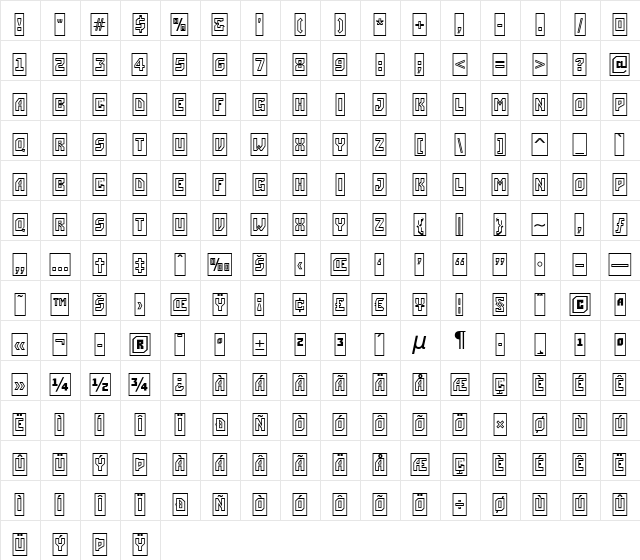
a_SimplerCmOtl Bold
| Designer | W.Chufarofsky & M.Slutsker` |
Design Context for a_SimplerCmOtl Typeface
a_SimplerCmOtl is a composed and adaptable typeface that performs quietly and consistently across a wide range of design contexts. Its bold stroke weight gives it real presence on the page.